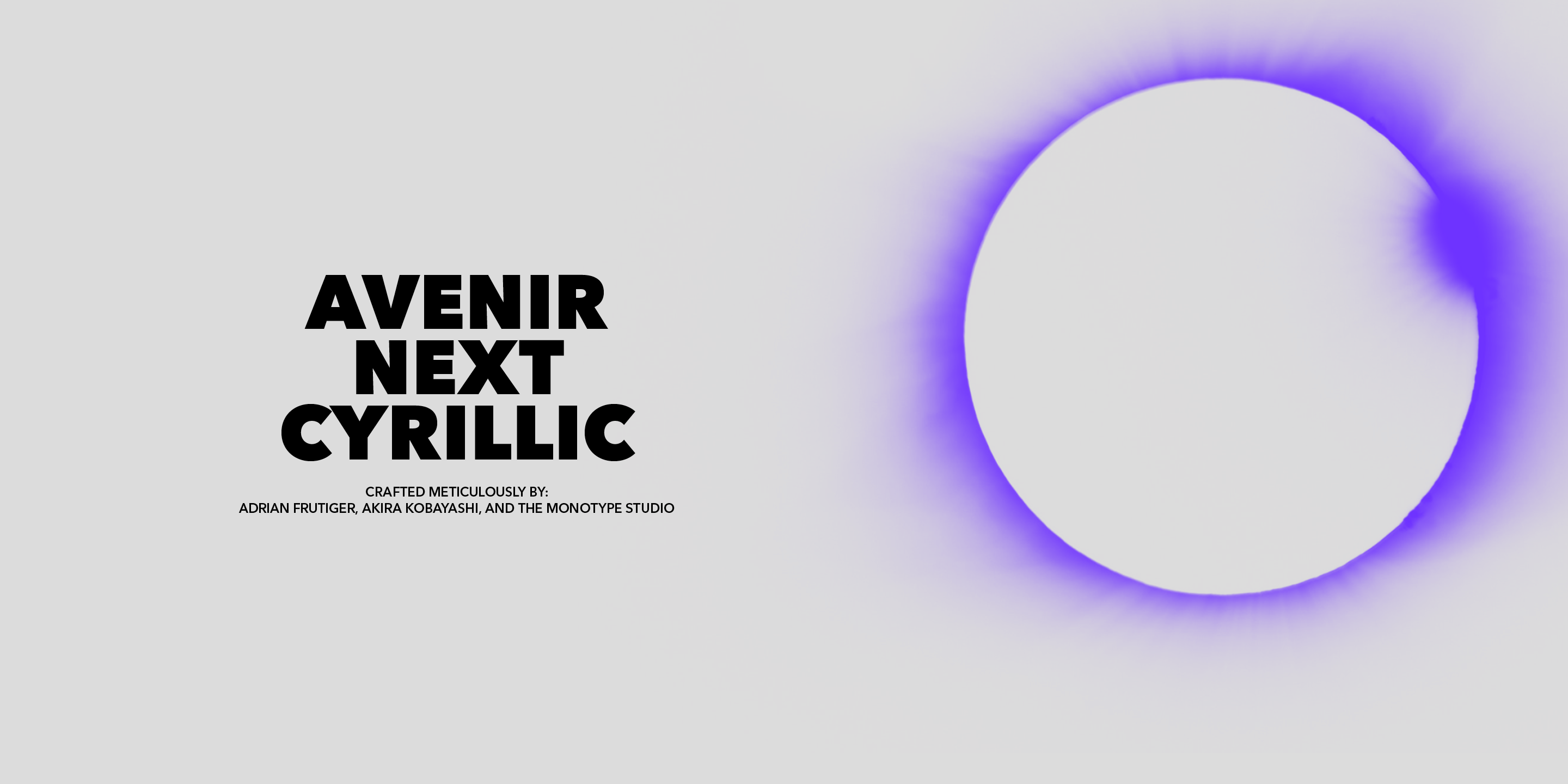
Avenir Next Cyrillic Font is perfect for Russian corporate branding, Eastern European business communications, multilingual tech platforms, Cyrillic language learning materials, international marketing campaigns, Slavic cultural organizations, global software interfaces, Russian publishing houses, multinational company presentations, and sophisticated projects that demand seamless Cyrillic typography with contemporary elegance and international professional standards.
What makes Avenir Next Cyrillic Font so exciting is its masterful extension of geometric modernism to Cyrillic script through perfectly balanced letterforms that maintain typographic harmony across Latin and Cyrillic alphabets. This typeface embodies contemporary international design, featuring optimized Cyrillic characters and consistent visual rhythm that ensures seamless multilingual communication while preserving the distinctive elegance and geometric precision of the renowned Avenir design philosophy.
Avenir Next Cyrillic Font family includes comprehensive multilingual variations: Regular, Bold, Light, Thin, Medium, Heavy, Demi Bold, Ultra Light, Condensed, and Extended versions. Each style maintains the font's inherent geometric character while offering extensive weight options and perfect Cyrillic integration, enabling designers to create cohesive international brand systems that perform flawlessly across diverse linguistic markets and cultural contexts.
The international excellence of Avenir Next Cyrillic Font Free Download makes it exceptionally valuable for global businesses and multilingual organizations requiring sophisticated Cyrillic typography solutions. This font successfully bridges cultural communication barriers while maintaining contemporary design standards, making it perfect for companies operating in Russian-speaking markets that need consistent visual identity. Its versatile character works brilliantly across both digital international platforms and premium multilingual materials, while its distinctive geometric design creates immediate recognition among audiences who appreciate modern typography and require seamless Cyrillic communication.